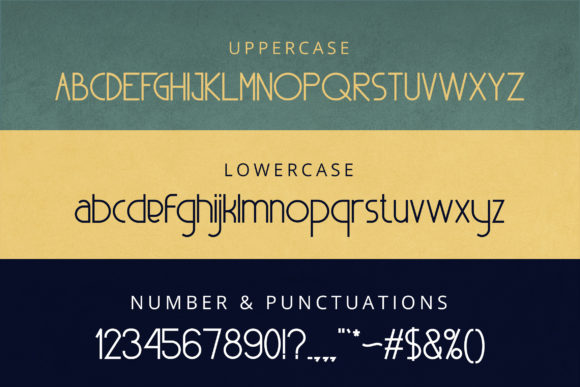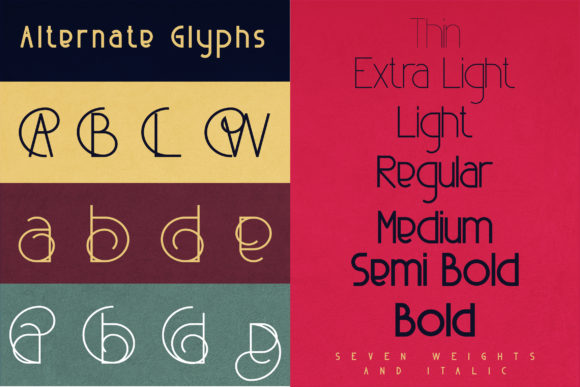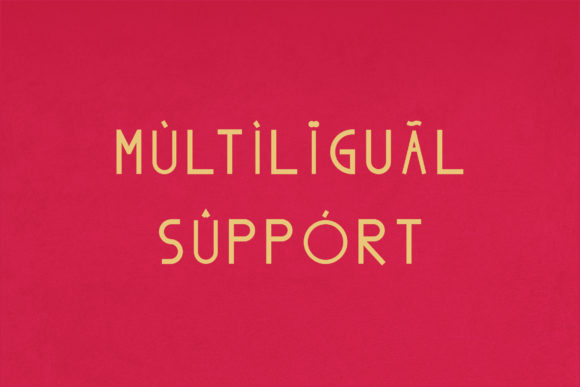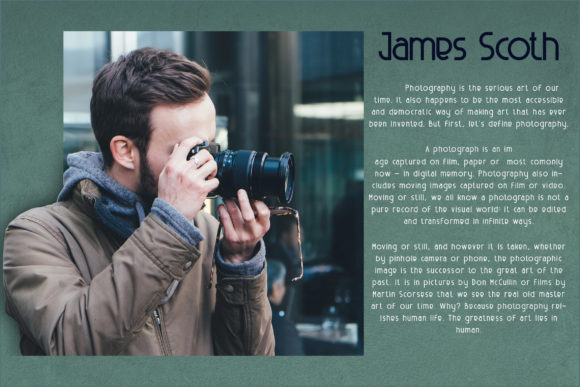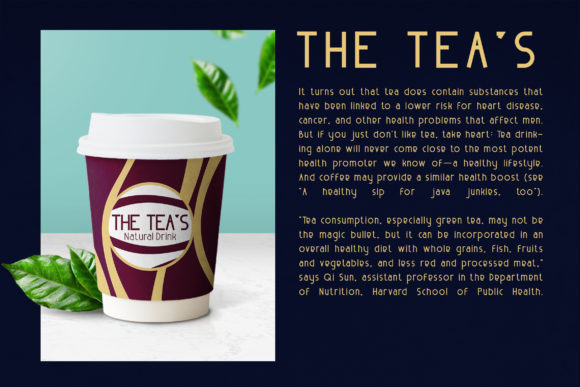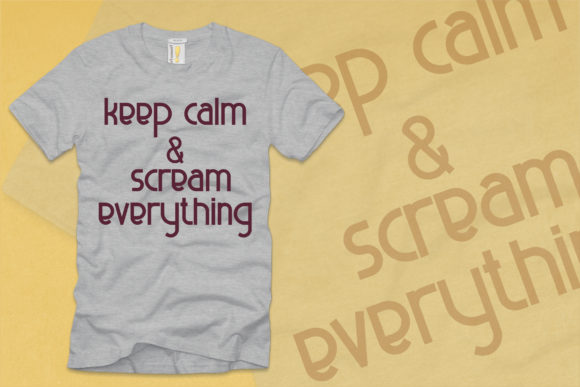
Introducing Garil Font: The Ultimate Sans Serif for Modern Designs
Are you tired of using overused fonts in your designs? Look no further than Garil Font, a simple and neat sans serif font that’s taking the design world by storm. With its clean, thin, and smooth vibe, Garil is the perfect addition to any project that requires a touch of elegance and sophistication.
The Characteristics of Garil Font
Garil Font boasts a range of characteristics that make it an ideal choice for designers and crafters. Here are just a few of its standout features:
- Clean and Simple: Garil’s sans serif design ensures that your text remains clean and easy to read, making it perfect for body text, headings, and titles.
- Thin and Smooth: The font’s thin and smooth lines create a beautiful visual effect that’s both modern and visually appealing.
- Highly Versatile: Garil Font can be used in a wide range of design projects, from digital media to print materials, and everything in between.
Why Designers and Crafters Love Garil Font
So, why are designers and crafters raving about Garil Font? Here are just a few reasons:
- Ease of Use: Garil Font is incredibly easy to use, even for those who are new to design. Its simple and intuitive design makes it easy to pair with other fonts and design elements.
- Customization: Garil Font can be easily customized to suit your design needs. Whether you want to adjust the font size, color, or style, Garil makes it easy to get the look you want.
- Uniqueness: With so many fonts available, it can be hard to stand out from the crowd. Garil Font offers a unique and distinctive look that’s sure to set your designs apart.
How to Use Garil Font in Your Designs
Ready to start using Garil Font in your designs? Here are a few tips to get you started:
- Pair it with Other Fonts: Garil Font pairs well with a range of other fonts, from bold and chunky to elegant and script. Experiment with different combinations to find the perfect look for your design.
- Experiment with Colors: Garil Font looks great in a range of colors, from bold and bright to subtle and muted. Try out different colors to see what works best for your design.
- Play with Sizes: Garil Font can be used at a range of sizes, from large headings to small body text. Experiment with different sizes to see what works best for your design.
Examples of Garil Font in Action
Want to see Garil Font in action? Here are a few examples of how this amazing font can be used:
- Digital Media: Use Garil Font in your website or social media graphics to add a touch of elegance and sophistication.
- Print Materials: Garil Font is perfect for print materials, such as brochures, flyers, and business cards.
- Branding: Use Garil Font as part of your brand identity to create a consistent and recognizable look.
In conclusion, Garil Font is a simple and neat sans serif font that’s perfect for modern designs. With its clean, thin, and smooth vibe, Garil is sure to be a hit with designers and crafters. Whether you’re looking for a font for digital media, print materials, or branding, Garil Font is an excellent choice. So why wait? Download Garil Font today and start creating stunning designs that will leave a lasting impression.